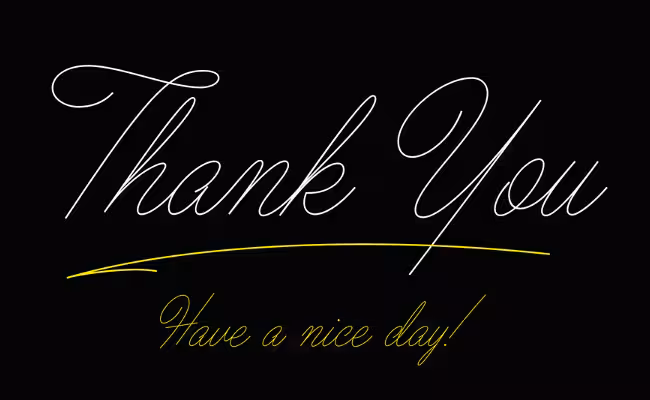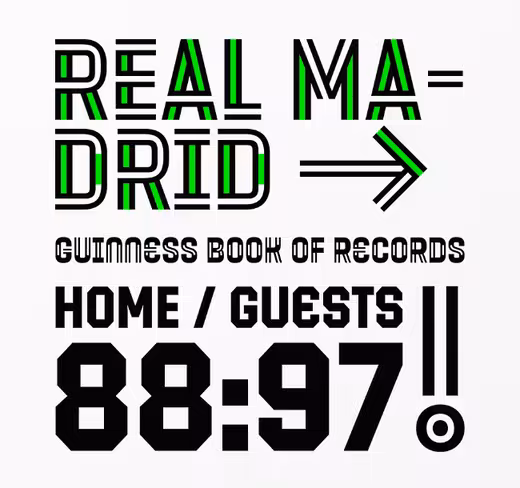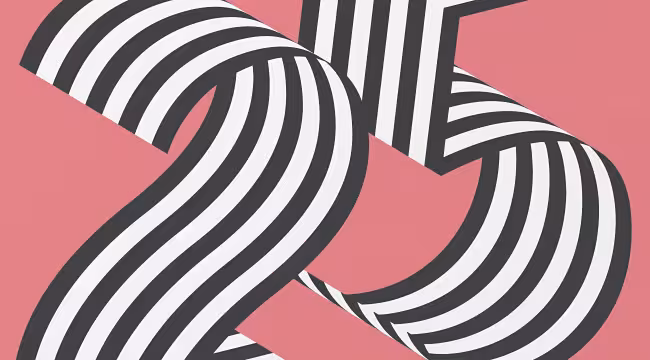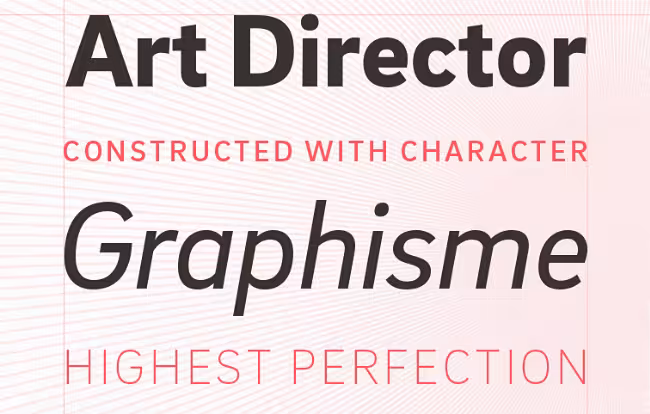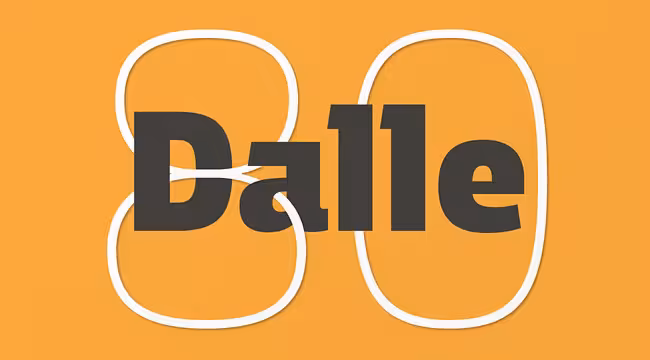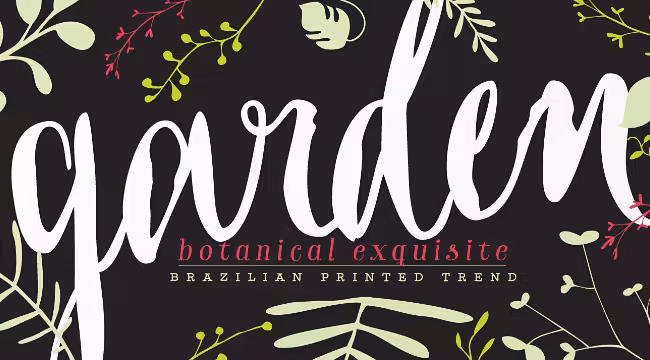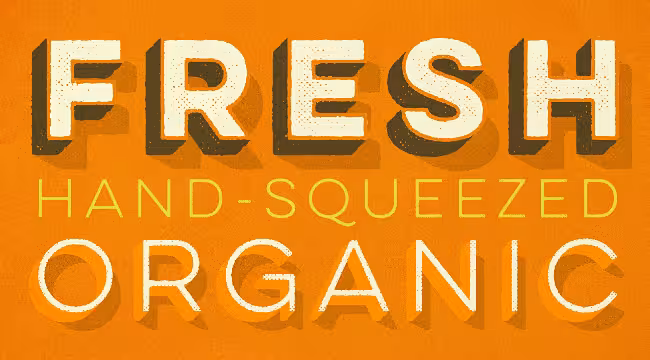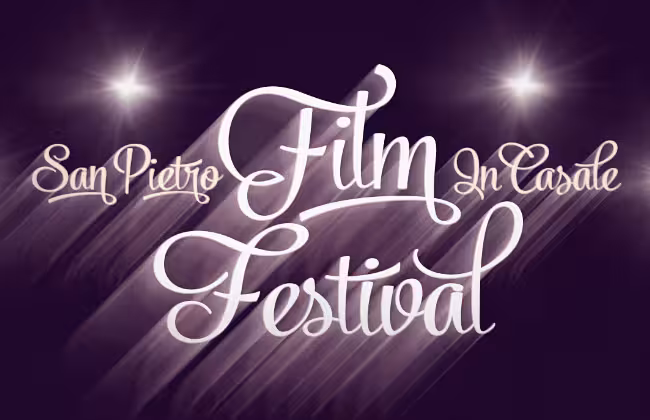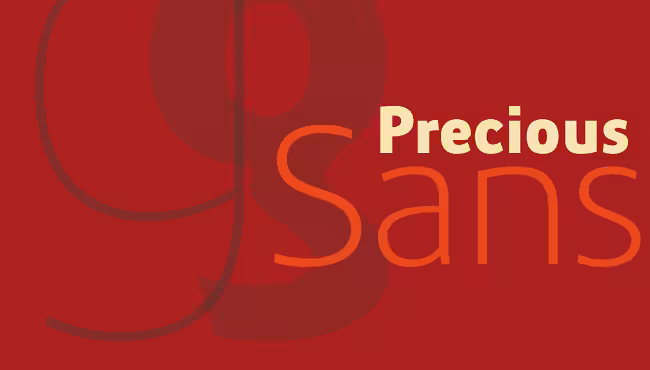
23 of the most gorgeous typefaces from August 2014
As always, we bring you another month of gorgeous typefaces you simply must check out. How do these fare against last month’s?
HVD Fonts: Brix Sans
Brix Sans works perfectly for corporate and editorial design. Combined with Brix Slab, high and complex typographical challenges can be solved.
Stawix: Dalle
Dalle is a large font family ideally suited for body text and display uses.
Font Bureau: Input
Input is a flexible system of fonts designed specifically for code.
Typesketchbook: Tolyer
Tolyer is a clean and distressed sans-serif family containing 50 fonts.
Latinotype: Via Sans
Via Sans was designed for fast reading from a distance.
Drew Melton: Ballpoint
The ideal balance of humanity and clarity.
Laura Worthington: Voltage
Voltage is an unexpected and energetic standout in the world of script fonts, breaking free from formal classifications while retaining the degree of personality we treasure in hand lettering.
Los Andes: Garden
Garden is a handmade display font with a playful and spontaneous feel.
Gerren Lamson: Solder
Solder was inspired by historic lead work in stained glass windows.
Yellow Design Studio: Lulo
Lulo is a textured, retro and 3-dimensional font family.
Juri Zaech: Bend
Bend is a contemporary ribbon type family.
Tyler Finck: Grandstander
Handmade block letters with a subtle shadow and texture.
dooType: Accura
Closed angles and smooth curves make Accura a unique source of personality.
Fenotype: Powder Script
Powder Script is a showy brush style script family of three weights.
Drew Melton: Show Stopper
Show Stopper captures the craft and quality of authentic brush lettering.
G-Type: Precious Sans Two
Precious Sans Two is a complete reworking of the 2002 design.
Thinkdust: Squoosh Gothic
Squoosh Gothic is a serious new contender in the arena of headline fonts.
Briefcase: BC Kakao
BC Kakao is a font family of stylistically similar fonts loosely based on calligraphy and handwriting.
Borutta: Adagio Sans Script
Adagio Sans Script is an experimental vertical variety of a normal sans, with the characteristics of handwriting.
Monograma: Ortodoxa
Ortodoxa takes a fresh look at conventional letterforms.